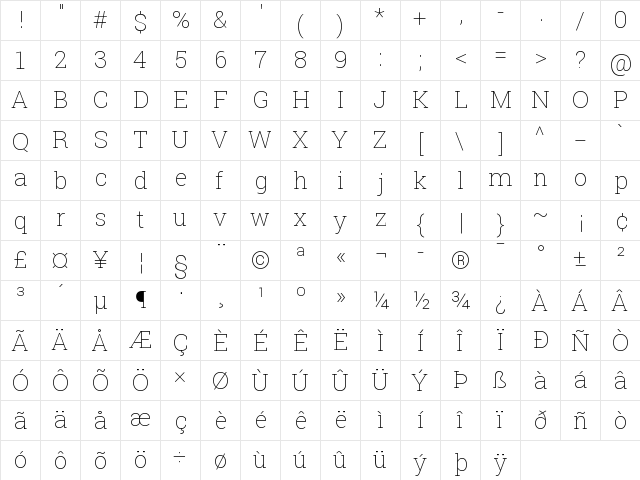
Roboto Slab Thin
Design Context for Roboto Slab Typeface
Roboto Slab features prominent, blocky serifs that give it a confident, grounded presence — equally at home in editorial settings and bold branding work. The delicate stroke weight brings airiness and refinement to layouts.
Works well in editorial design, news publishing, impactful branding, and poster typography.
Pro Tip: Try Roboto Slab set tight in headlines for a classic editorial feel. Its slab serifs create strong horizontal rhythm that anchors a page layout.